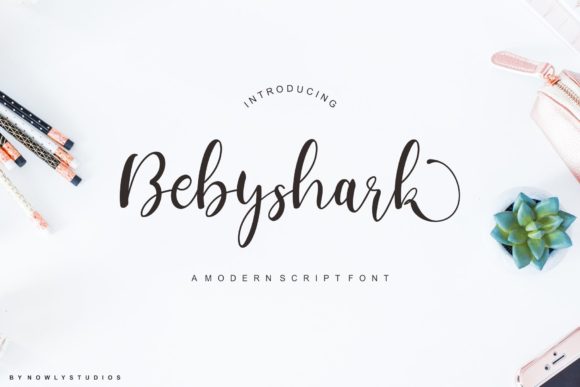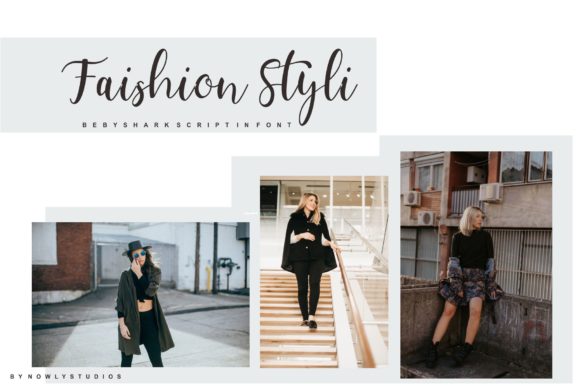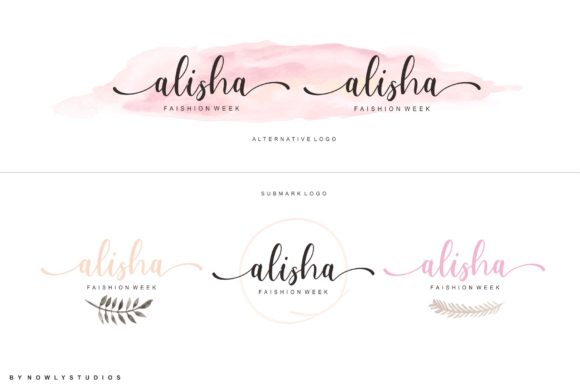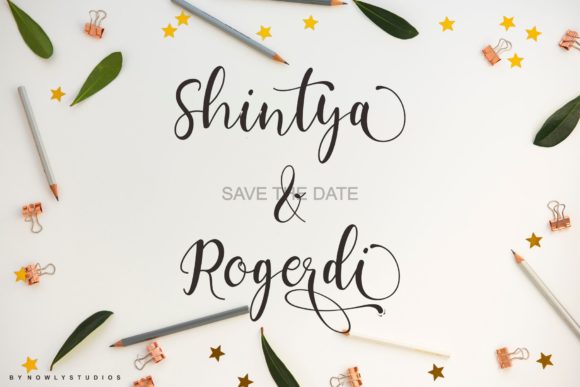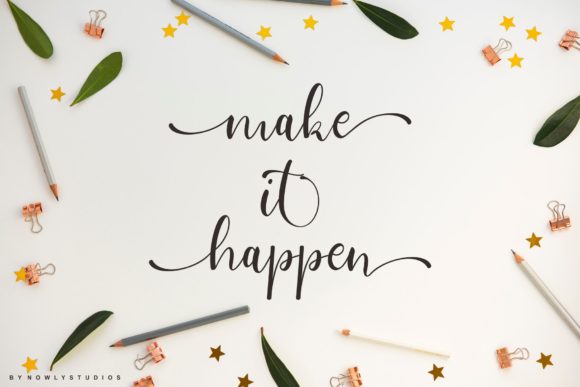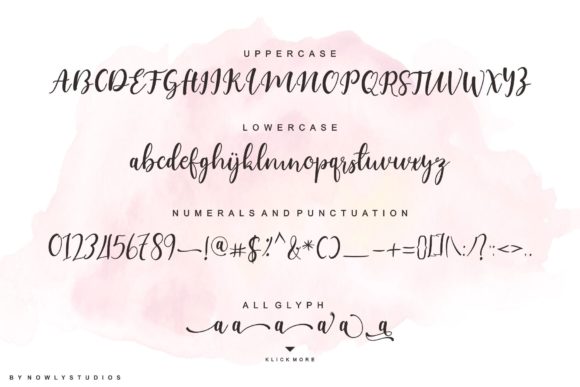
Bebyshark Font
About Bebyshark Font
Bebyshark is cute and friendly, and incredibly elegant. This effortlessly gorgeous script will work great in a wide range of crafting projects.